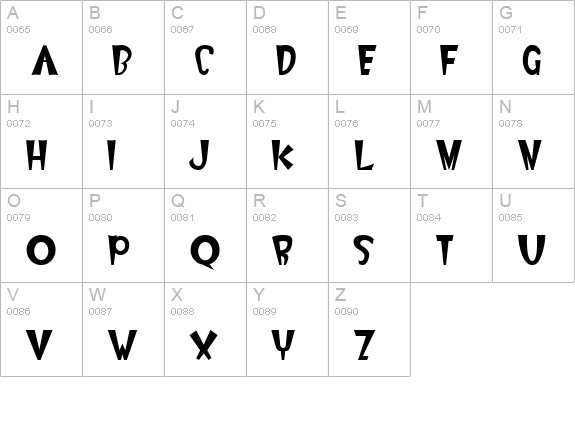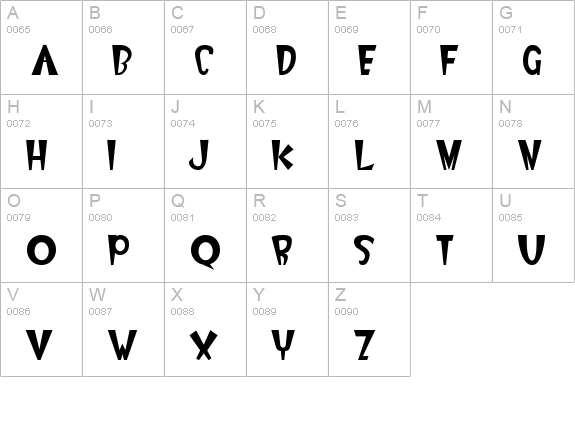
Natasha Caps Font Details
Introducing Natasha Caps font, a stylish and elegant typeface designed for those looking to make a bold statement with their text. This font features clean lines and intricate details that give it a sophisticated and modern look. Perfect for use in branding, logos, headlines, and more, Natasha Caps is sure to elevate any design project. And the best part? Natasha Caps font is available for free download at FontsMarket.com. So you can add this stunning font to your collection without breaking the bank. Don't miss out on the opportunity to enhance your designs with the timeless beauty of Natasha Caps font.